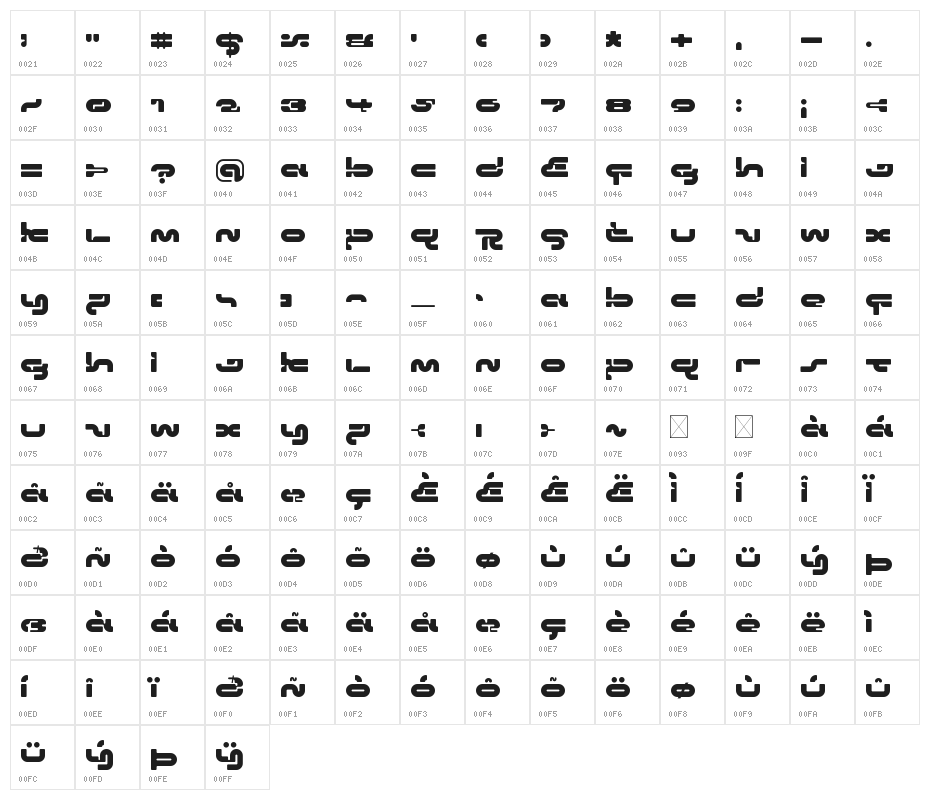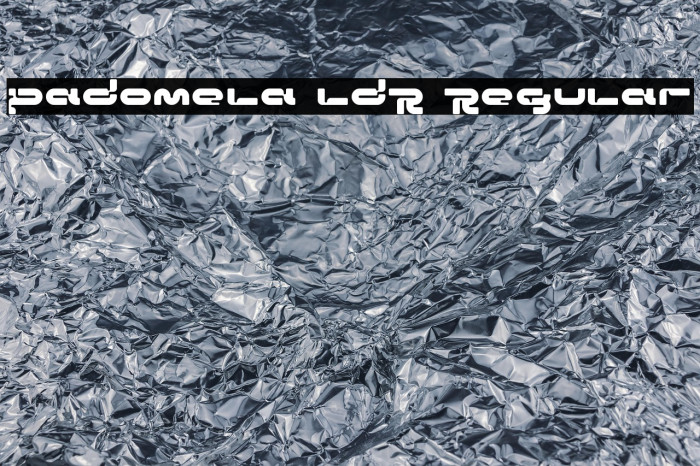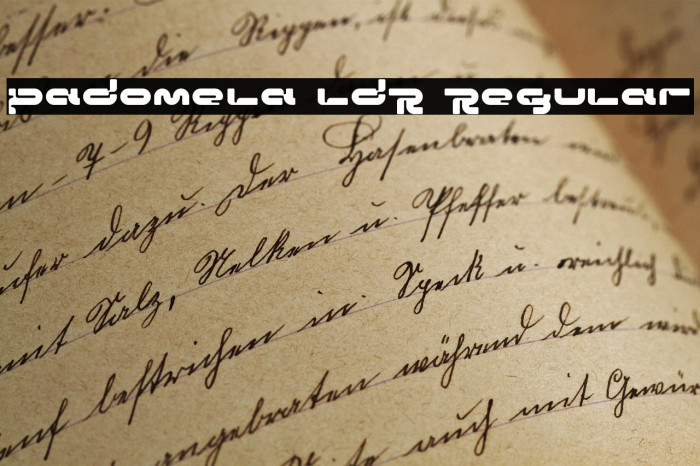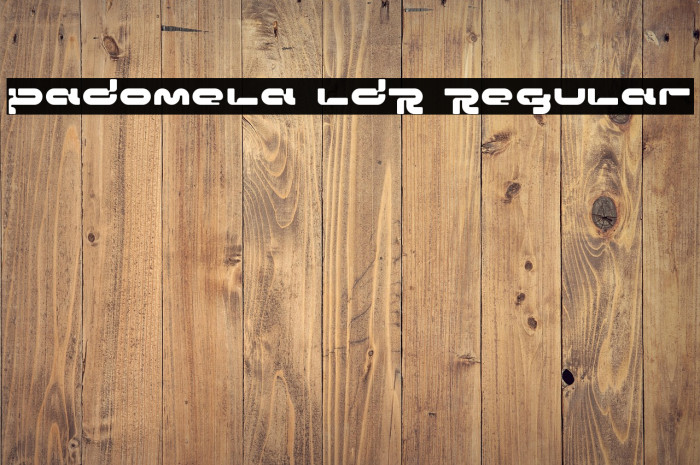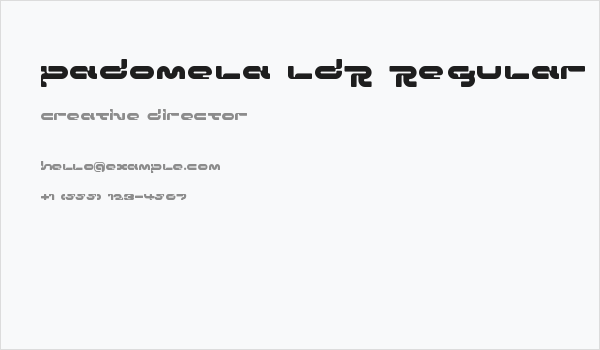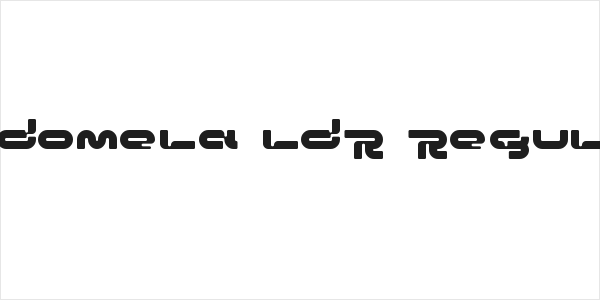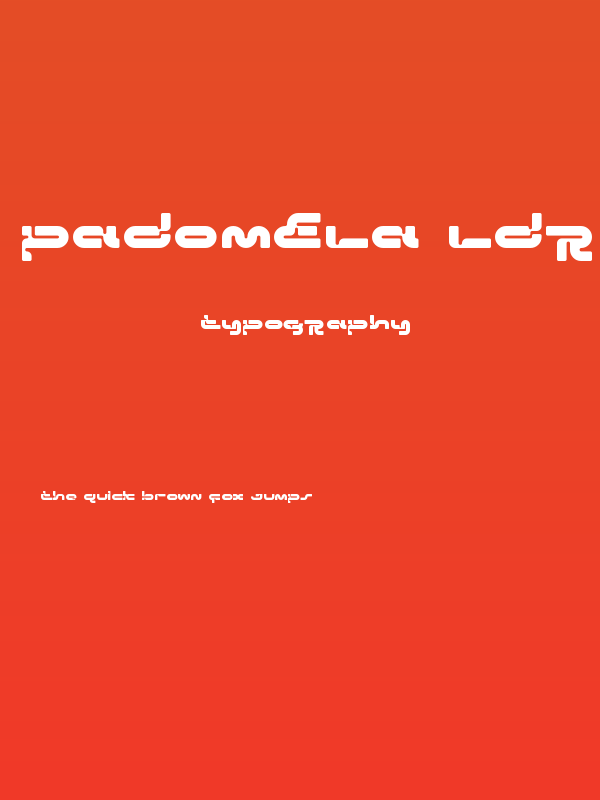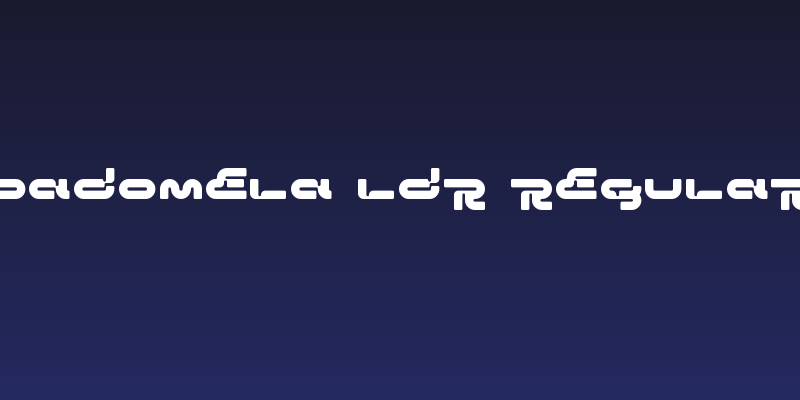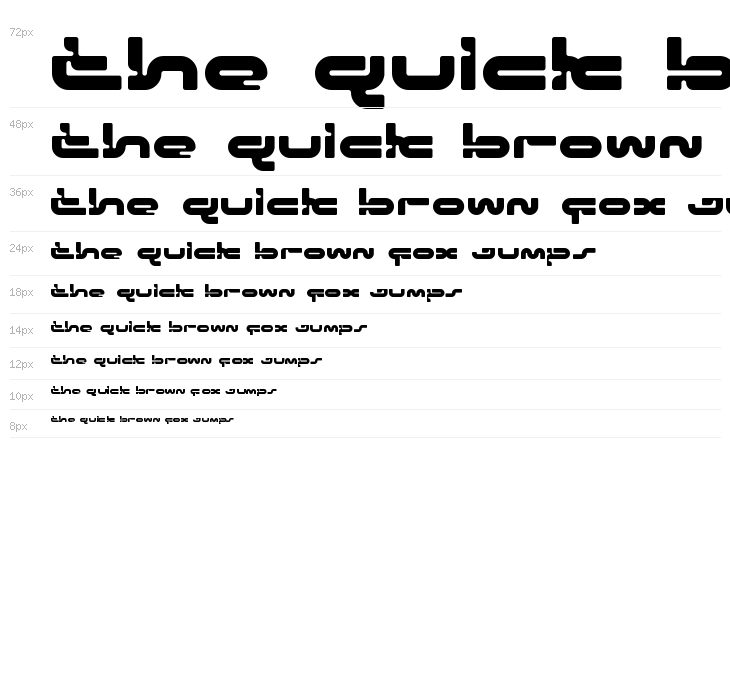
Padomela LDR Regular Font
Padomela LDR Regular Description
This font features a bold, futuristic design with a unique geometric structure. Each character is crafted with a combination of sharp angles and smooth curves, creating a distinctive and modern aesthetic. The uppercase and lowercase letters maintain a consistent style, with a focus on symmetry and balance. The numerals and special characters are equally bold, complementing the overall design. This font is ideal for projects that require a strong visual impact, such as branding, posters, and digital media.
| Proposed Projects | Ideal for branding, posters, digital media, and any project needing a modern, impactful look. |